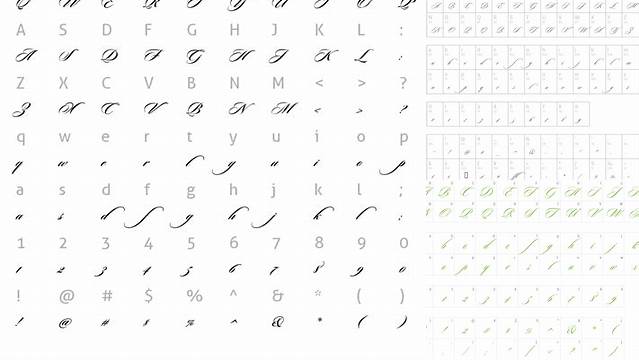
What is Sloop Script Three Font?
Let's kick things off with the basics. Sloop Script Three is a stylish, handwritten-style script font that's perfect for adding a touch of elegance and personality to your projects. Think of it as the cool older sibling of your basic fonts – it brings a certain flair and sophistication that can really elevate your designs. The font typically features flowing strokes and a natural, organic feel, making it ideal for anything from invitations and branding to social media graphics and website headers. It's designed to mimic the look of real handwriting, which gives it a warm and approachable vibe. This isn't just any font; it's a statement piece that can transform your text from plain and boring to visually stunning. When you use Sloop Script Three, you're not just typing words; you're making a statement, creating a mood, and expressing your unique style. It is perfect for creating an emotional connection with your audience because it conveys a sense of creativity and sophistication. Whether you're a seasoned designer or just starting out, Sloop Script Three is a versatile font that can add a special touch to any project, helping you create designs that truly stand out. The charm of Sloop Script Three lies in its versatility and the authentic feel it gives to any text. It is more than just a typeface; it is an artistic tool that lets you express yourself in a unique and visually attractive way.
It's important to understand the different aspects of a font before downloading it. The style is a vital consideration. When using this font, make sure it aligns with your brand's personality and the design's goal. Make sure it matches the overall aesthetic you're aiming for. Also, the font's readability is also an important factor. Despite its beauty, a script font like Sloop Script Three needs to be readable, particularly in longer texts. To ensure good readability, use a large font size and experiment with spacing. You may want to consider the context in which you will use the font. Will it be displayed digitally, or in print? Will it be used in large headlines, or smaller body text? All these questions affect how the font will be best utilized. When used correctly, the font's elegance and charm can enhance a broad range of projects, making it a versatile and valuable tool for designers and creators. Be mindful of these factors, and you will be well on your way to achieving your design goals with this remarkable font.